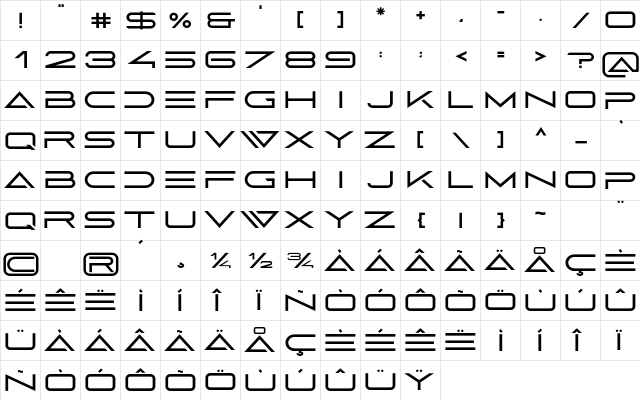
abnes Regular
Design Context for abnes Typeface
abnes offers clean, dependable letterforms without strong stylistic allegiance, making it a practical choice for designers who need flexibility.